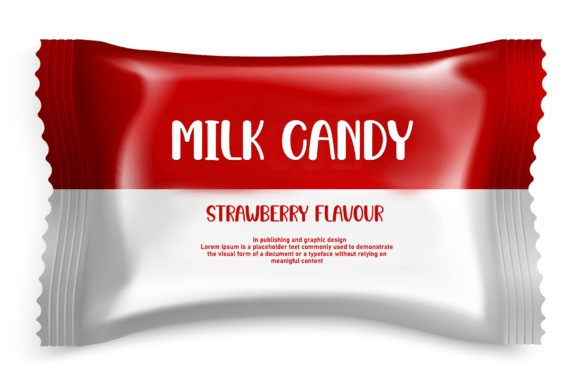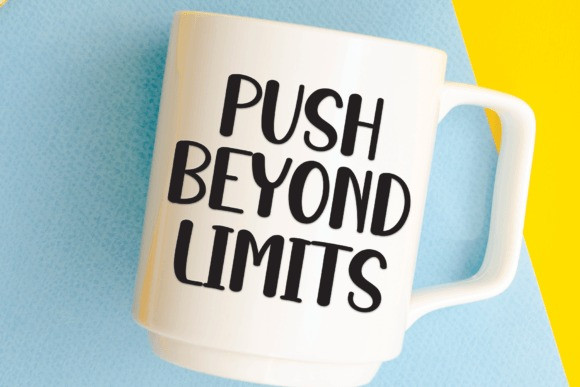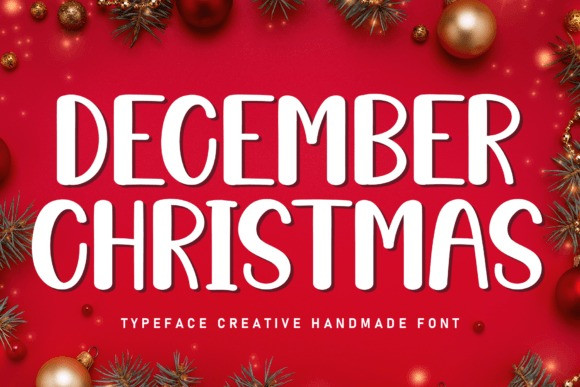
December Christmas Typeface
December Christmas Typeface is a lovely and timeless handwritten font. It is the best choice for creating eye catching logos, branding and quotes. Every letter has a unique and beautiful touch, which will make your design come alive!